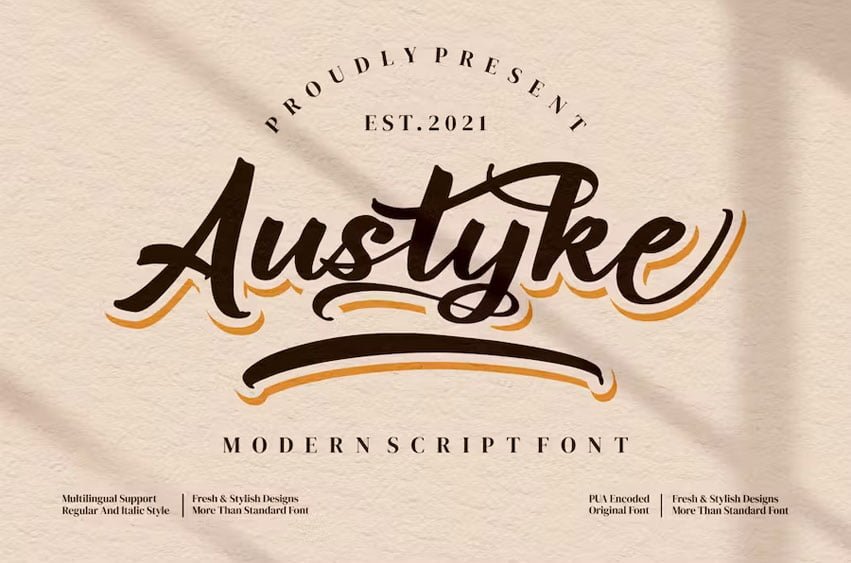
Austyke Font Modern Script Font, from Integritype Studio, is a premium Script Font, perfect for any project that requires a distinctive, premium feel.
Ligature, Alternate & Multilingu
Fonts include support for 65 languages